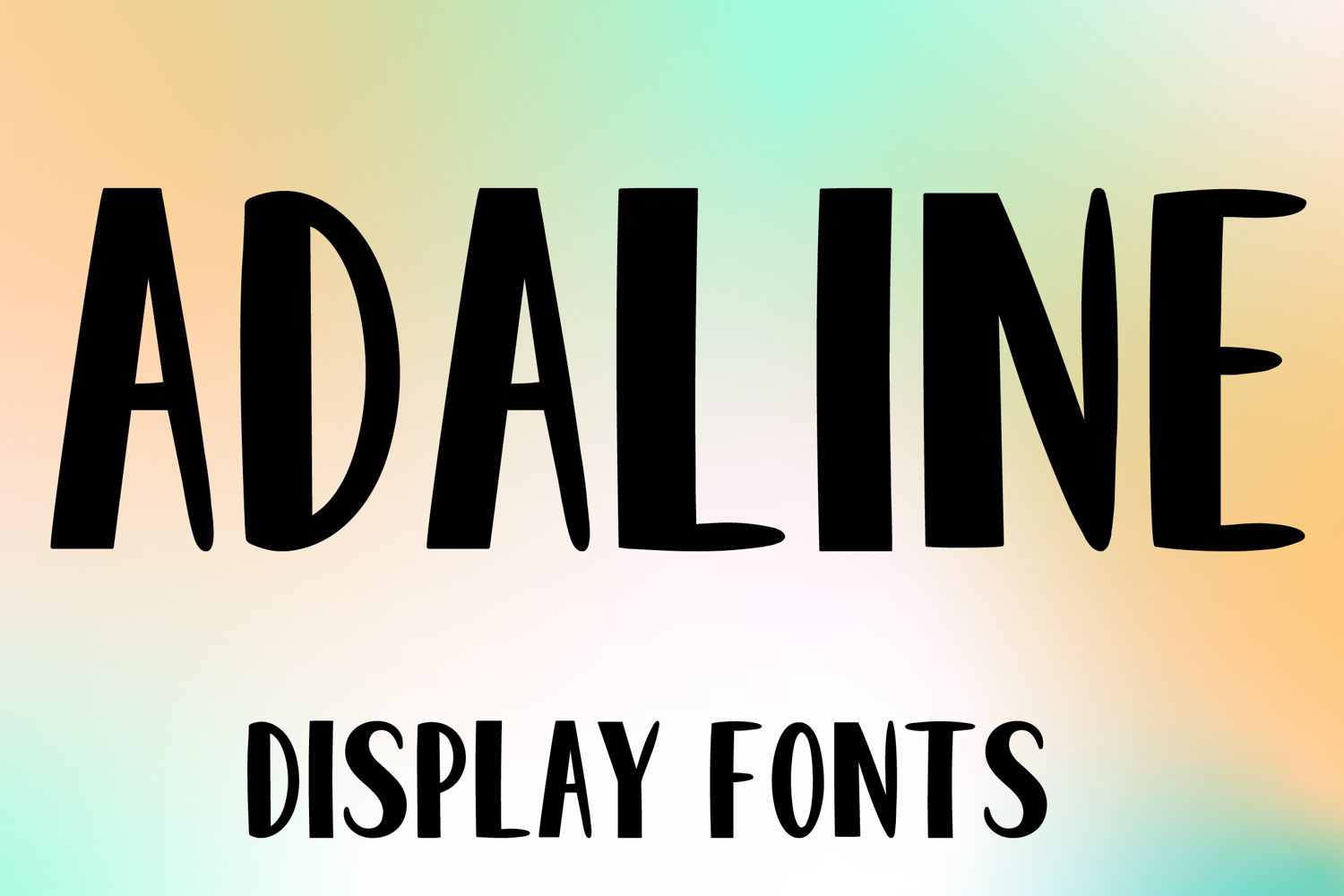
ADALINE
ADALINE is a bold display font with a tall hand-drawn style and clean artistic character. Its uppercase letterforms feature strong vertical shapes, slightly uneven edges, and a handcrafted look that gives it a modern, expressive, and eye-catching presence. Designed with uppercase letters A–Z and numbers 0–9, ADALINE is perfect for branding, posters, packaging, headlines, logos, social media graphics, and creative projects that need a stylish and memorable statement.